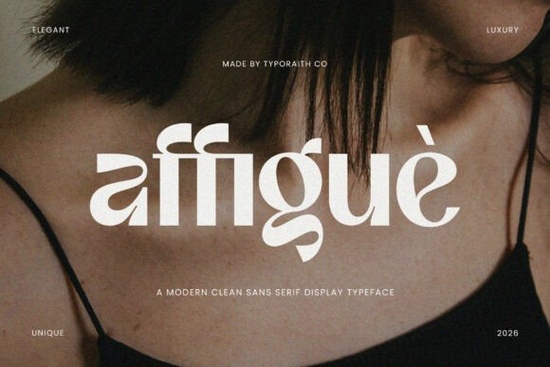
Designers, crafters, and small business owners often look for fonts that can elevate their visual projects without complicating the process. The Affigue Font is a great example of a typeface that balances elegance with simplicity, making it ideal for a wide range of creative applications. Whether you're working on fashion branding, magazine covers, or luxury product packaging, Affigue offers a refined look that stands out without being overwhelming.
This modern sans serif display typeface is designed with a clean and luxurious feel, perfect for those who want to add a touch of sophistication to their designs. Its bold yet soft appearance makes it versatile enough for both large-scale typography and more subtle design elements. The font’s structure ensures readability while maintaining a premium aesthetic, which is essential for projects that aim to convey quality and style.
Why Affigue Font Works Well in Different Projects
Affigue Font is particularly effective in scenarios where visual impact matters. Its clean lines and balanced proportions make it suitable for headlines, logos, and other prominent text elements. When used in large sizes, it maintains clarity and strength, ensuring that your message is both seen and remembered. This makes it a popular choice among designers who need a font that can deliver a strong impression without sacrificing readability.
For editorial layouts, the font's versatility allows it to blend well with other typefaces while still standing out as a primary element. In luxury branding, its refined appearance helps create a sense of exclusivity and high quality. Whether you're designing for print or digital media, Affigue provides a professional and polished look that aligns with modern design trends.
How to Use Affigue Font Effectively
To get the most out of Affigue Font, consider the following tips:
- Pair it with complementary fonts: Use it as a headline font and pair it with a simpler body font to create contrast and balance.
- Experiment with weights: The font likely comes in multiple weights, so try different options to see what works best for your project.
- Focus on spacing: Proper kerning and line spacing can enhance the overall appearance and readability of your design.
When working with Affigue, keep in mind that less is often more. While it’s a strong and confident typeface, overusing it can dilute its impact. Use it strategically to highlight key elements in your design and let it speak for itself.
Final Thoughts on Using Affigue Font
Affigue Font is a reliable choice for anyone looking to add a touch of class and modernity to their work. Its clean design and elegant character make it suitable for a wide range of applications, from fashion to advertising. By understanding how to use it effectively, you can ensure that your designs stand out in a competitive market.
Whether you're a seasoned designer or just starting out, taking the time to explore and experiment with fonts like Affigue can make a big difference in the quality of your work. Consider adding it to your toolkit and see how it enhances your creative projects.
Before finalizing your design, take a moment to review how the font looks in different contexts. Test it with various colors, backgrounds, and sizes to ensure it meets your expectations. A little extra effort can lead to a more polished and professional result.